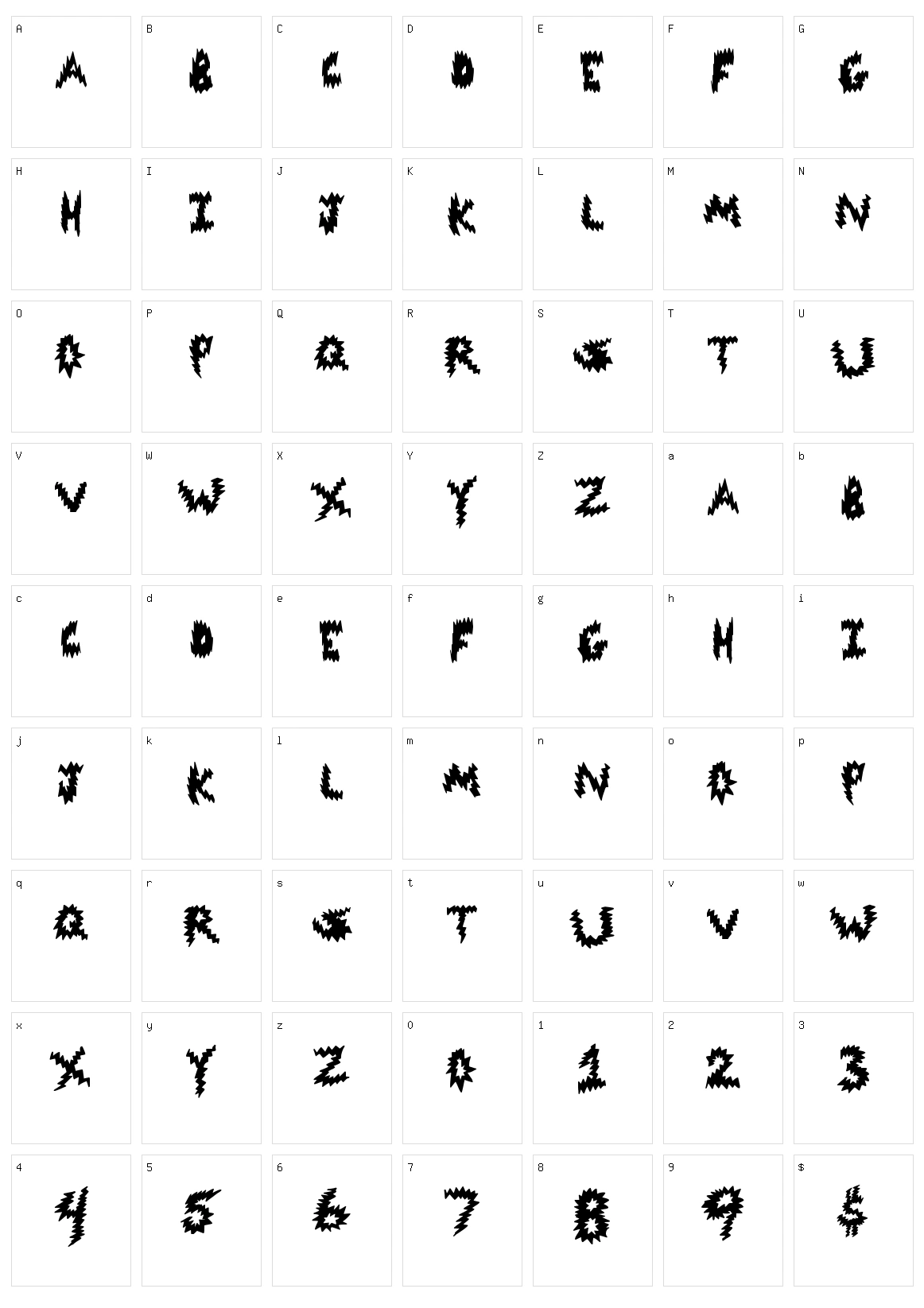
The free font Code Danger is carefully designed by Xerographer Fonts, showcasing a thoughtful balance of creativity and usability and falls under the Cartoon font style. When you download the ZIP file, it contains only 25.24 KB of font files, making it lightweight and quick to download. Please review the license details below to understand permitted usage and distribution rights. If license information is not available, we recommend using this font for personal projects only or contacting the author directly for commercial usage permissions.